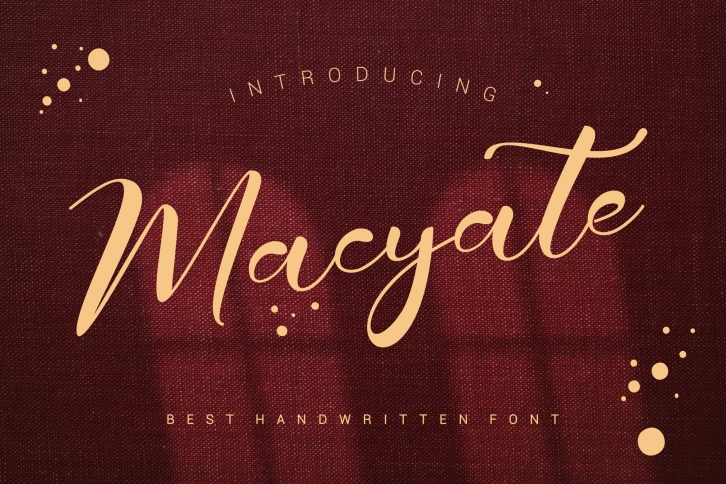
Macyate is a bold and authentic handwritten font suitable for any branding project like logo, t-shirt printing, export, and many more. It will look outstanding in a wide range of contexts.